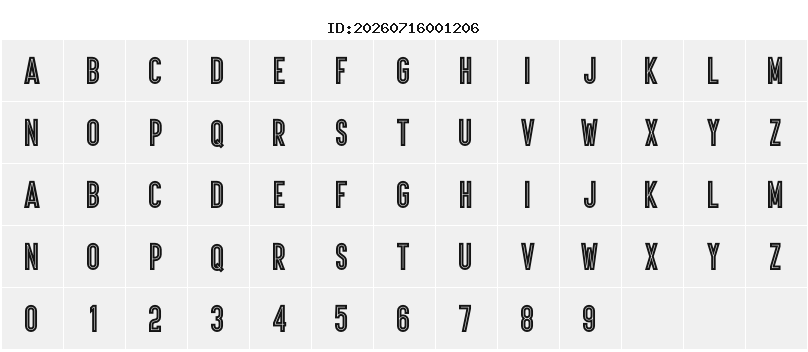
Ariq Preview
About Ariq.otf
Ariq.otf is a modern, elegant sans-serif font designed for ultimate readability and visual harmony. Perfect for branding, headlines, web design, and print materials.